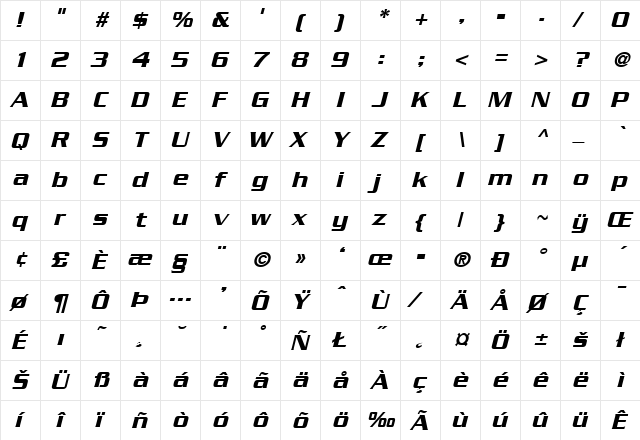
Serpentine-MediumOblique Regular
Design Context for Serpentine-MediumOblique Typeface
Serpentine-MediumOblique is a composed and adaptable typeface that performs quietly and consistently across a wide range of design contexts. Its italic angle brings a sense of urgency and motion to the letterforms.
Pro Tip: Try Serpentine-MediumOblique for annotation and caption copy alongside an upright companion — the contrast in angle creates a dynamic but ordered typographic system.